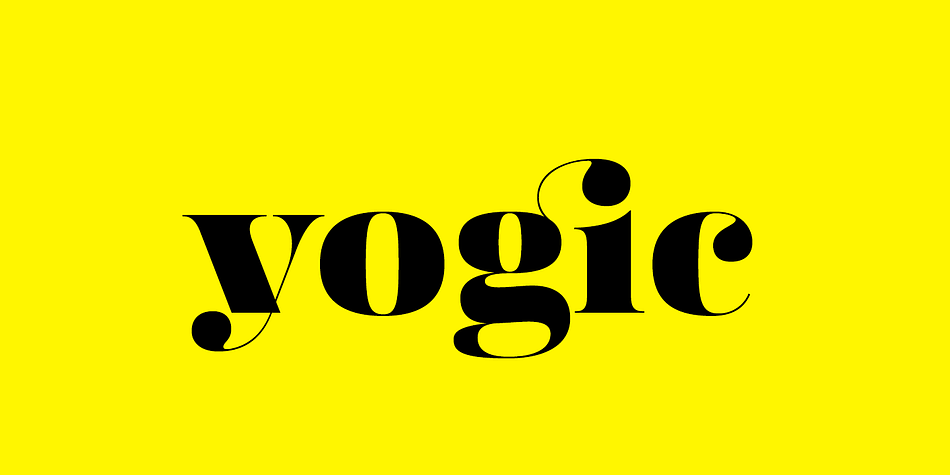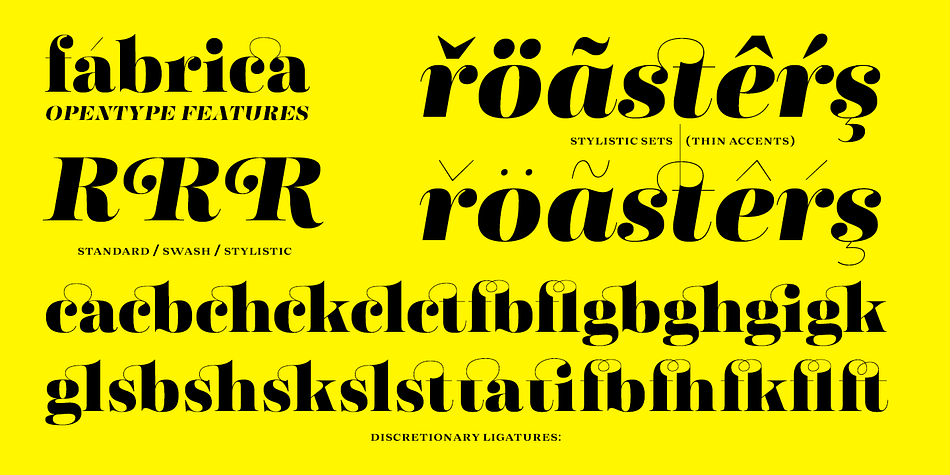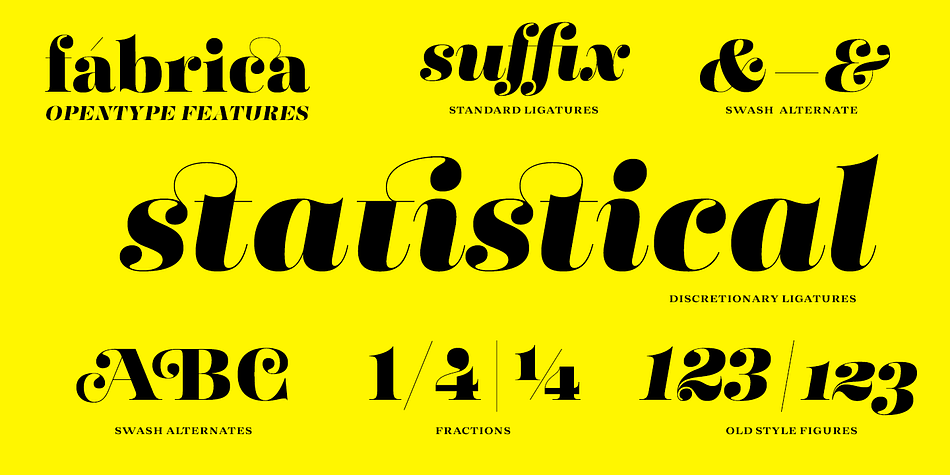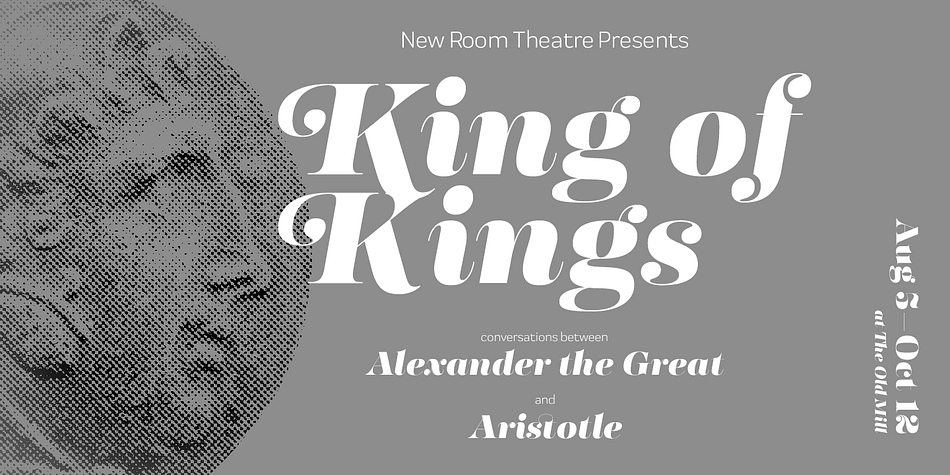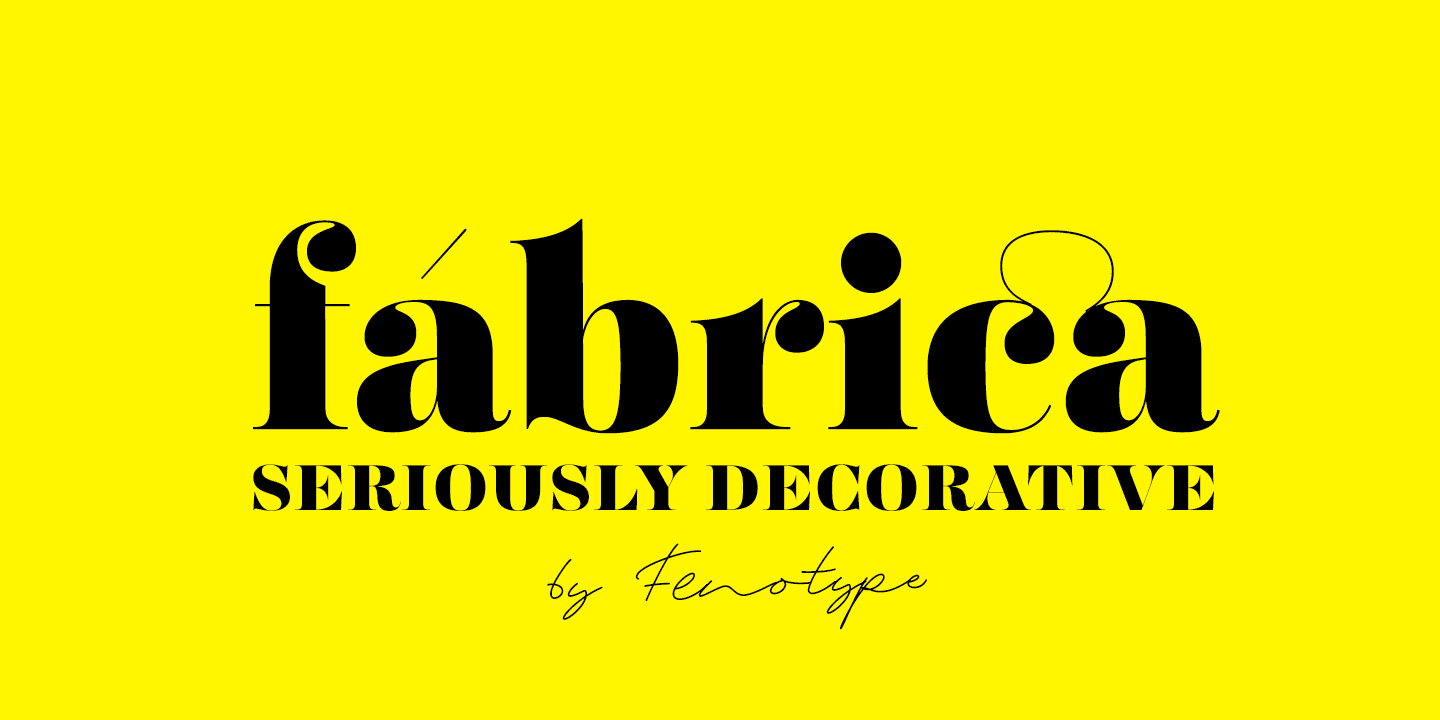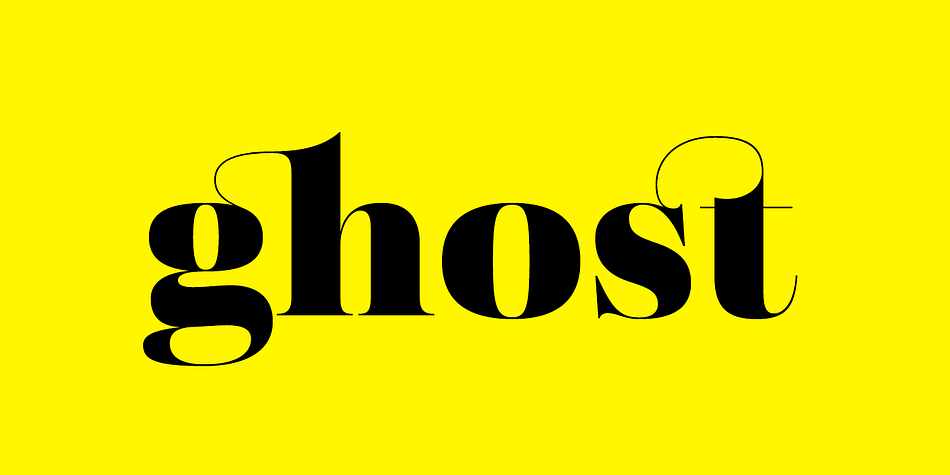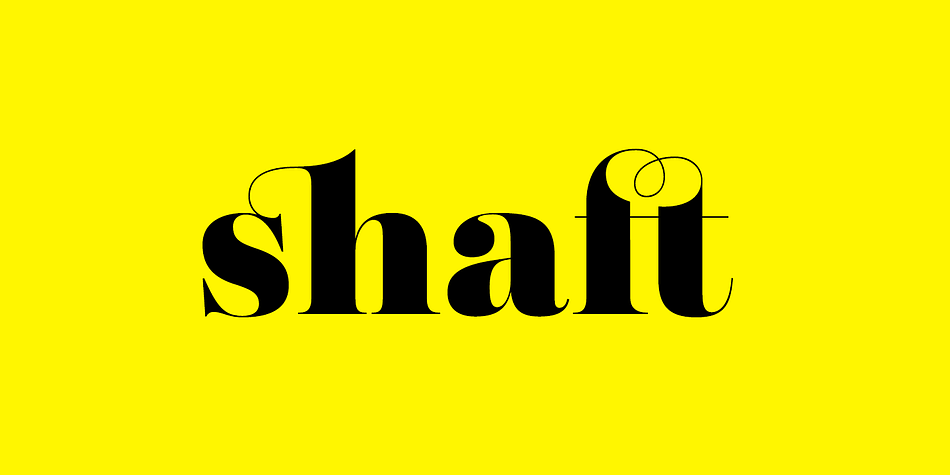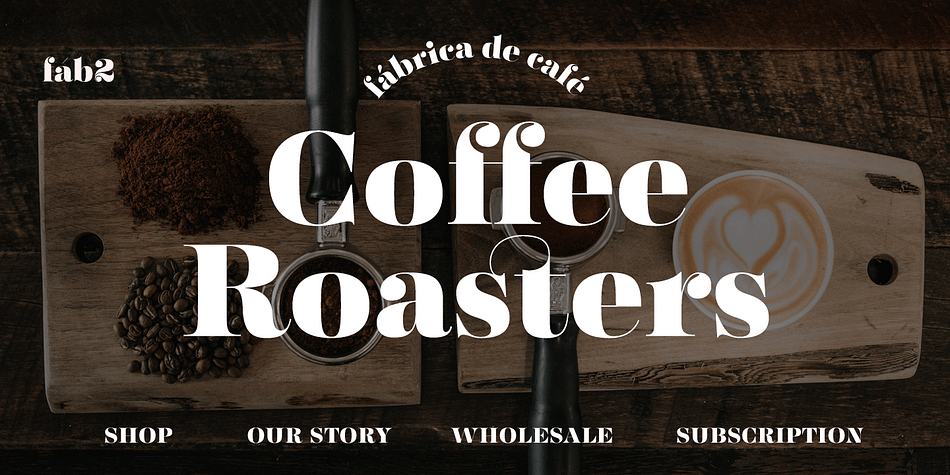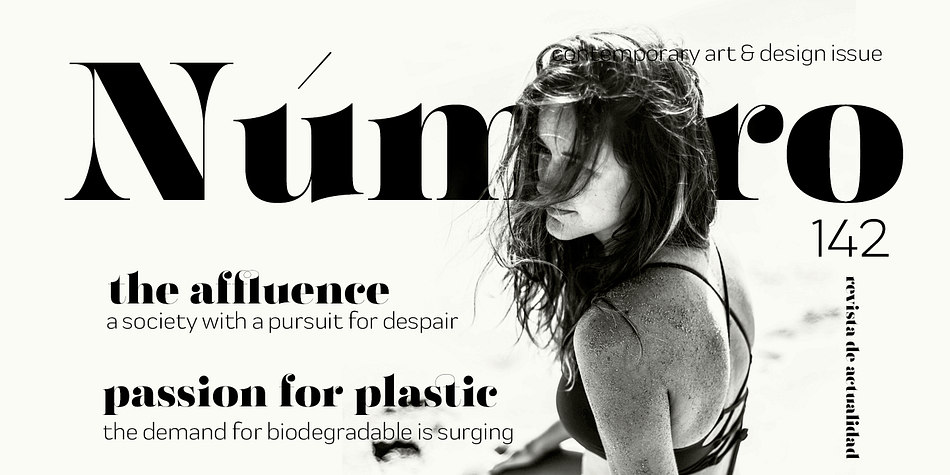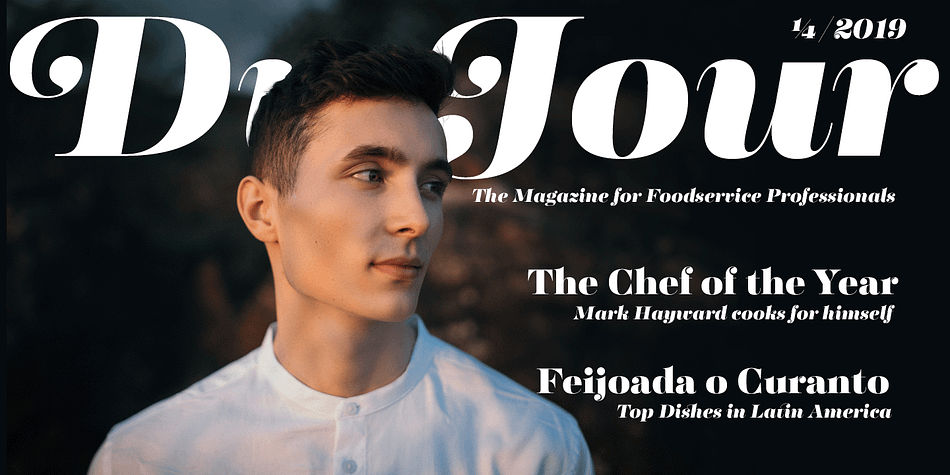
Designed by Erik Bertell, Emil Bertell and Teo Tuominen, Fabrica is a display serif and serif font family. This typeface has two styles and was published by Fenotype.
Fábrica is an exquisite display letter with flair. Its delicate curves have been carefully honed; yet its beauty is seemingly effortless. To add to its appeal, Fábrica is equipped with several handy features such as ligatures (there are plenty of them), old style figures and fractions. Its true crown jewel, however, is the finely tuned hairline accents – no longer will a diacritical mark ruin your heading. Find those under a feature called Thin accents.
Use Fábrica to turn your communication into statements of divine elegance.
Designers | Erik Jarl Bertell, Emil Karl Bertell, Teo Tuominen |